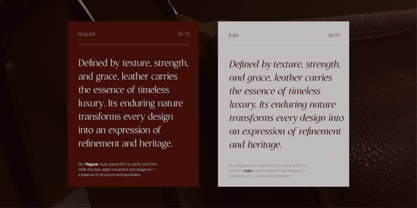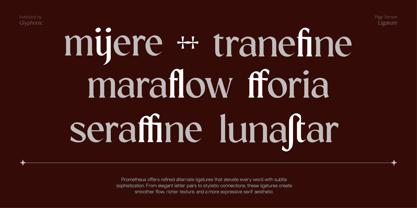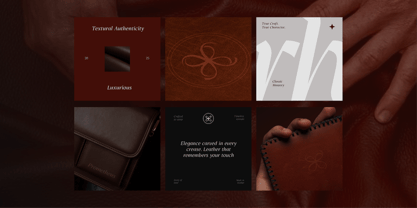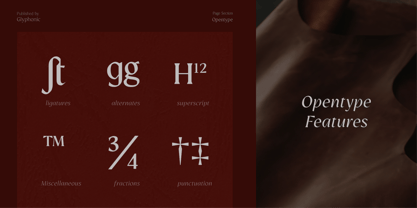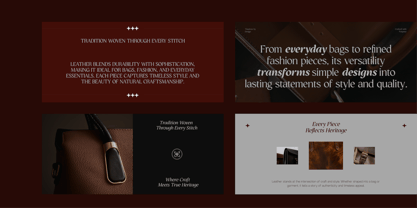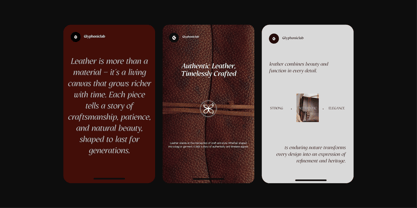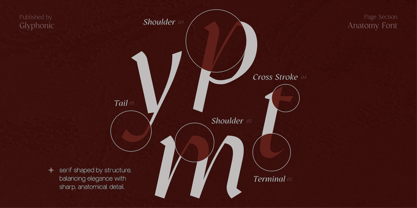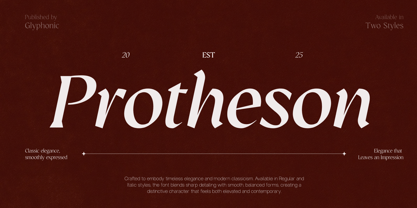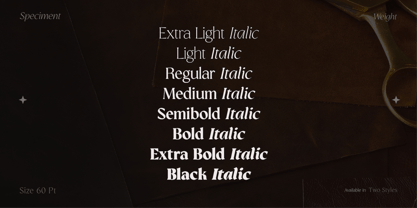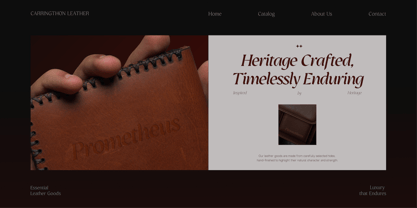
GC Protheson
von Onyx Studio
Die Schriftfamilie GC Protheson wurde von Muhammad Hafiizh Solana entworfen und von Onyx Studio veröffentlicht. GC Protheson enthält 16 Stile und Familienpaketoptionen. Mehr über diese Familie
GC Protheson – Serif Family is a refined serif typeface designed to bring timeless elegance, sharp detail, and professional presence to any visual project. Blending classical influences with modern precision, this type family delivers strong readability, balanced proportions, and a polished aesthetic suitable for both display and text settings. Crafted to offer versatility without losing its distinct character, GC Protheson excels in branding, editorial design, packaging, luxury identity, and sophisticated visual communication. Each letterform is shaped with subtle contrast and clean serif structures, creating a harmonious flow that elevates your typography with grace and authority. Features: Uppercase & Lowercase Numbers & Punctuation Elegant Serif Detailing Multilingual Support (170+ Languages) Bring heritage, beauty, and refined sophistication to your design with GC Protheson – Serif Family.
Designer: Muhammad Hafiizh Solana
Foundry: Onyx Studio
Onyx Studio is an independent type design studio dedicated to crafting high-quality, distinctive, and expressive fonts. With a passion for detail and a spirit of exploration, Onyx Studio creates typefaces that are not only functional but also rich in character and visual identity.Balancing tradition with modern design sensibilities, Onyx Studio develops type that supports diverse visual needs—ranging from branding and editorial design to digital interfaces. Each font carries its own story, emphasizing legibility, originality, and artistic value.More than just a font foundry, Onyx Studio is a creative space where form, rhythm, and typographic structure are explored to build powerful, meaningful visual identities through type.